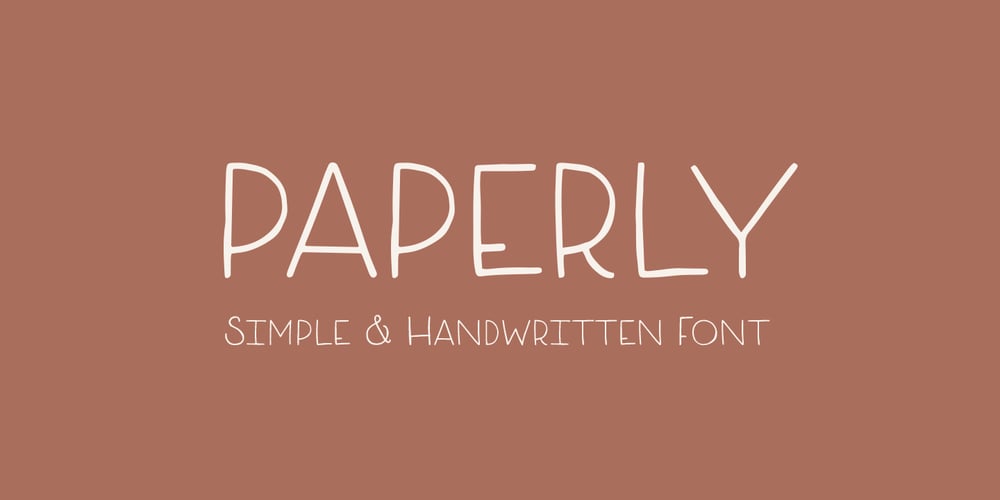
Paperly Font Family was designed by Rachel Kick and published by Rachel Kick. Paperly contains 4 styles and family package options. Paperly is the perfect way to add a friendly, hand-written touch to any project! It’s simple and minimalist design conveys a calm and friendly feel.It was designed by Rachel Kick based on original hand-drawn letters. Each character was initially drawn on paper before being transformed into a simple typeface. It has 4 styles that can be combined or used individually to fit the needs of any project.